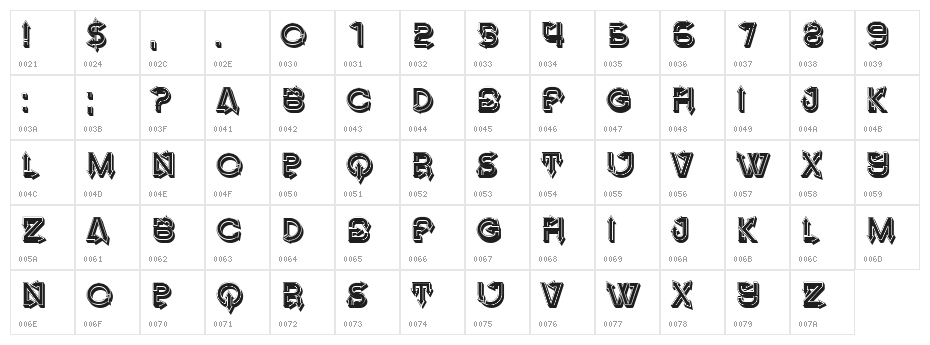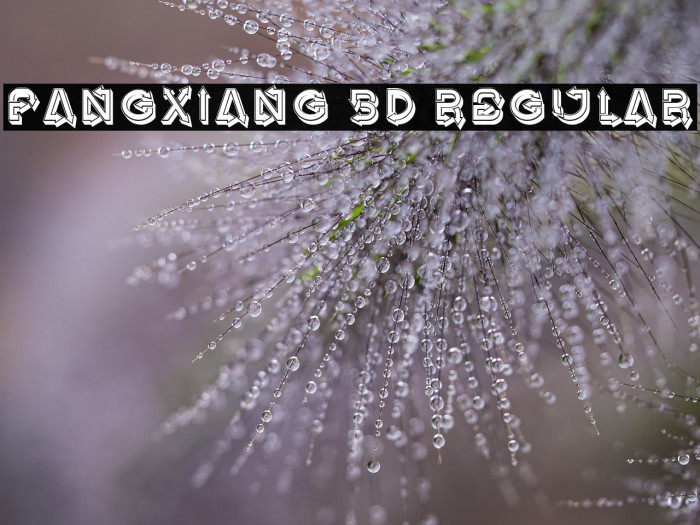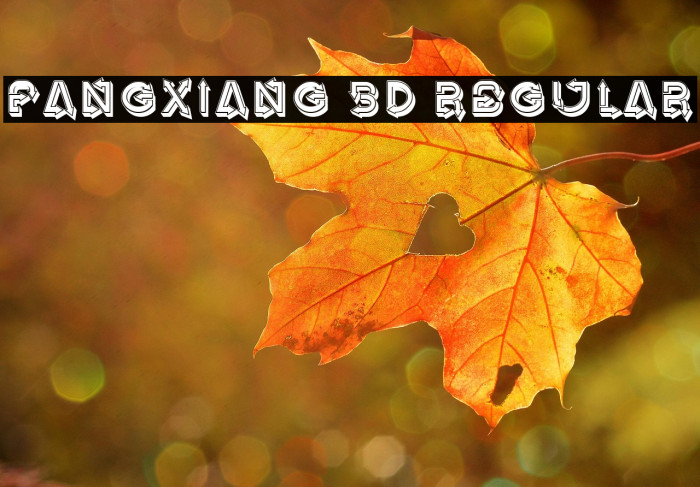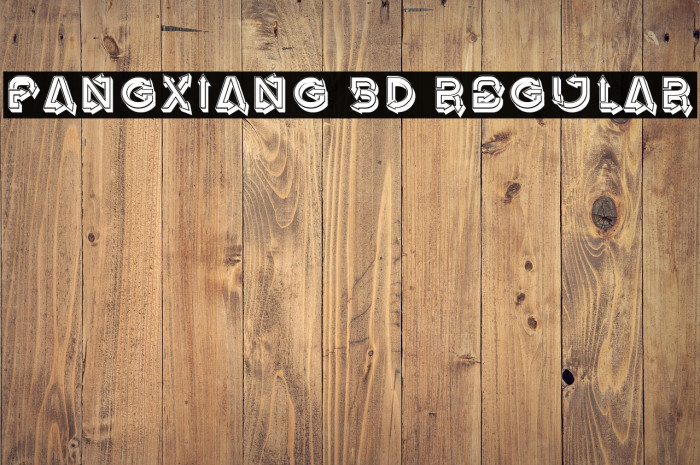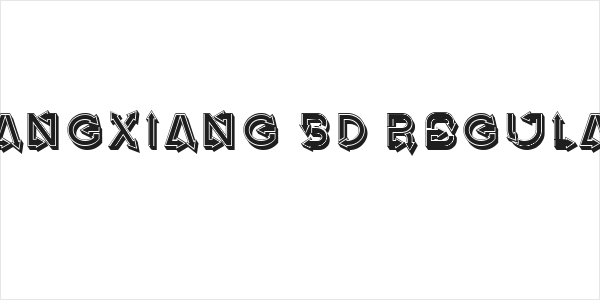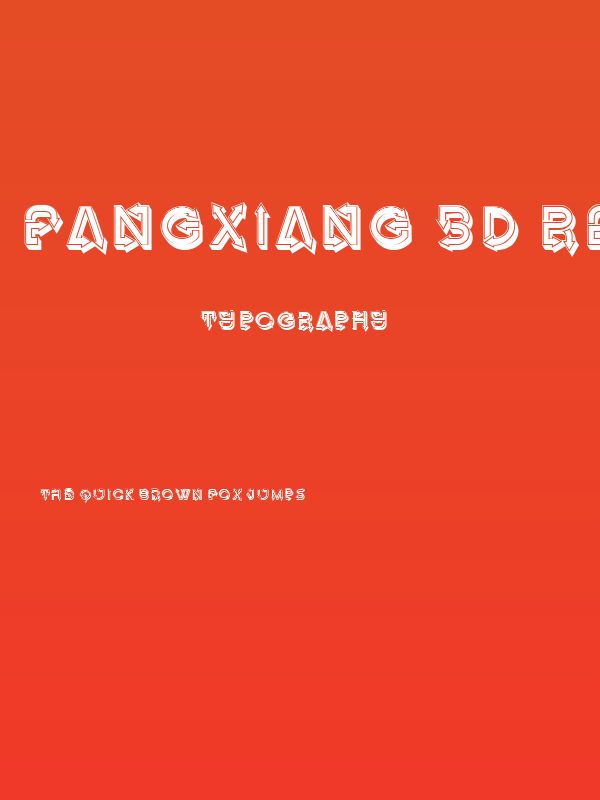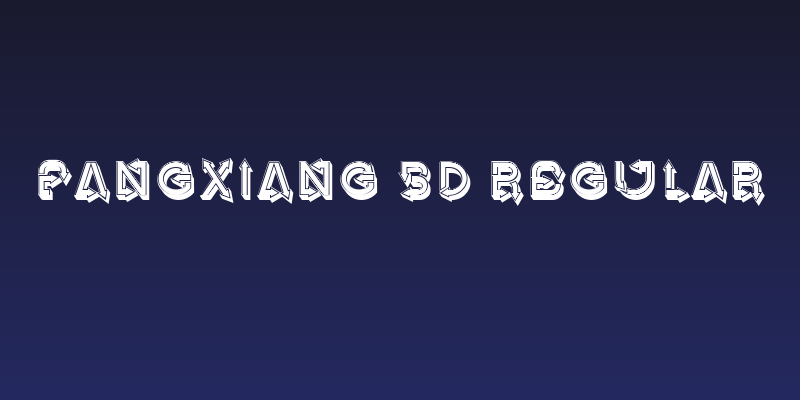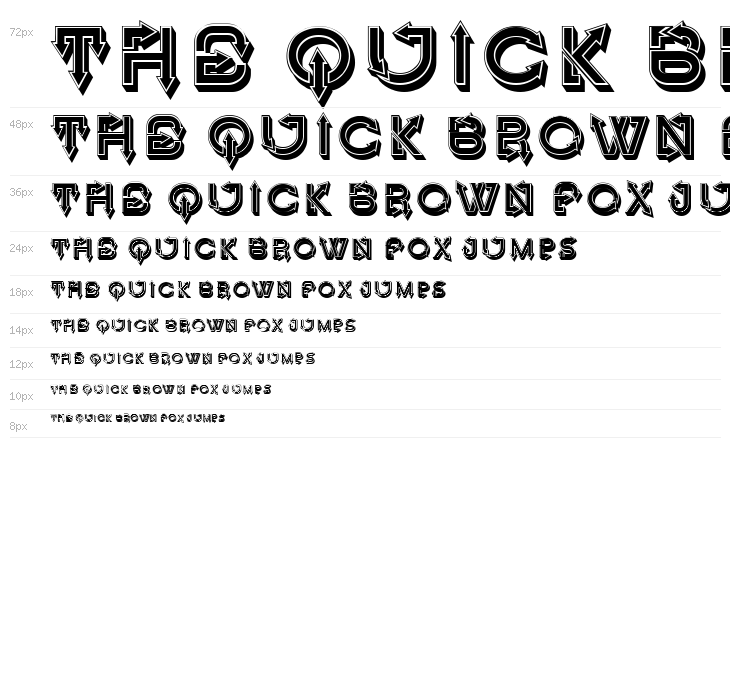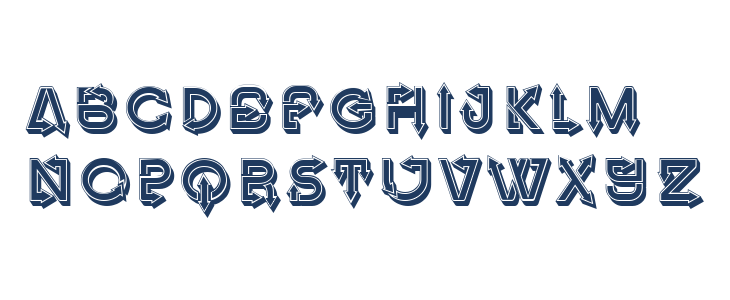
Fangxiang 3D Regular Font
Fangxiang 3D Regular Description
This font features a bold and striking 3D effect, with each character appearing as if it is carved out of a solid block. The letters have a geometric and angular design, with sharp edges and a sense of depth that makes them stand out. The style is consistent across uppercase, lowercase, numbers, and special characters, maintaining the illusion of three-dimensionality. The font's unique appearance makes it ideal for eye-catching designs where a sense of modernity and boldness is desired. Its intricate design suggests a careful balance between artistic flair and readability.
| Proposed Projects | Ideal for posters, logos, video game graphics, and any project requiring a modern, eye-catching typeface. |